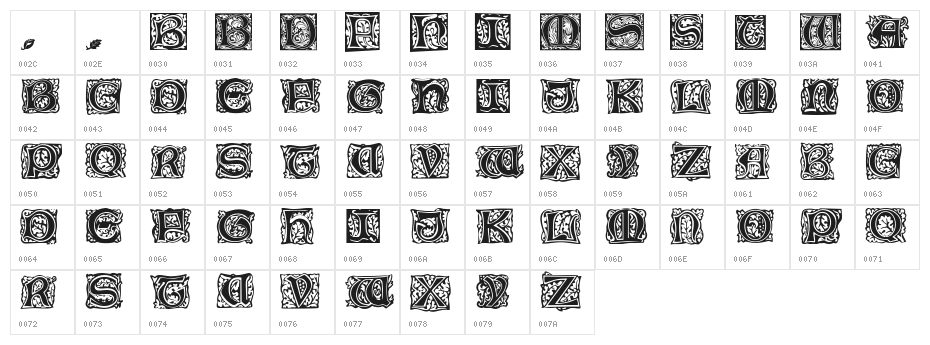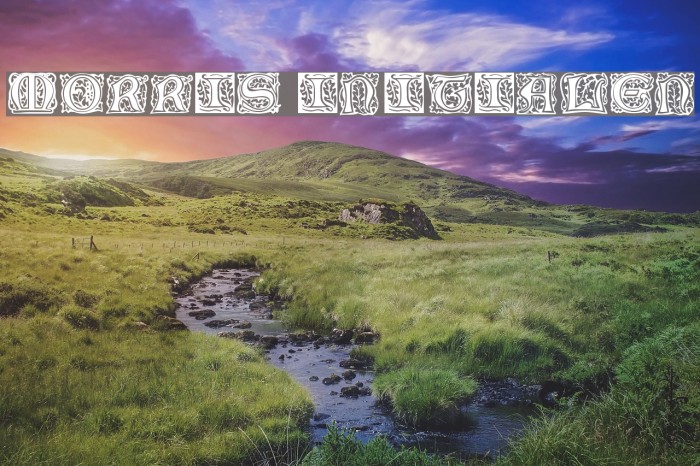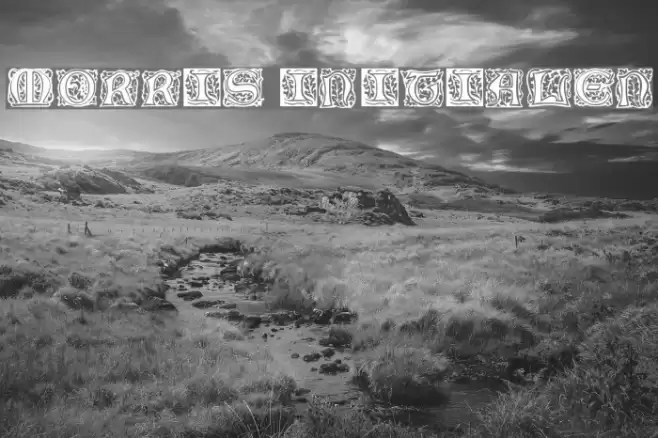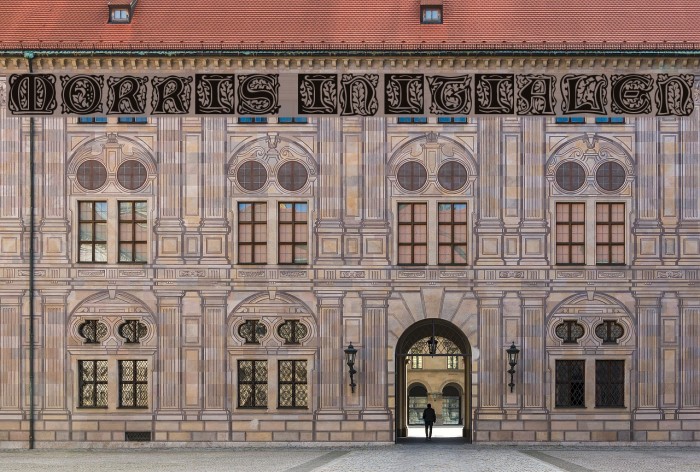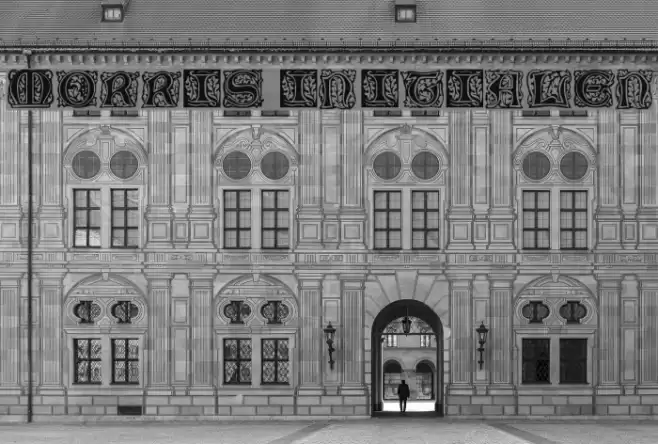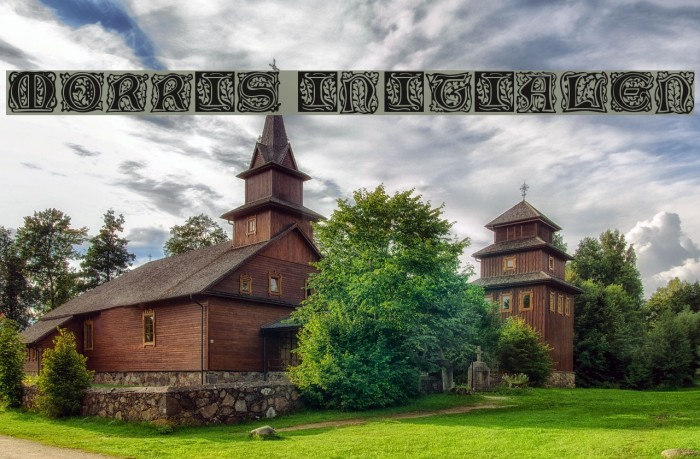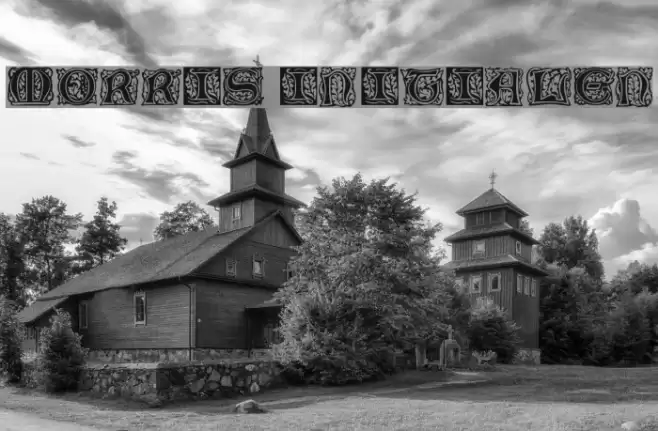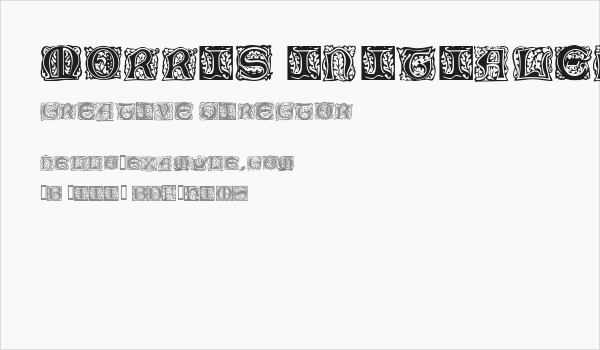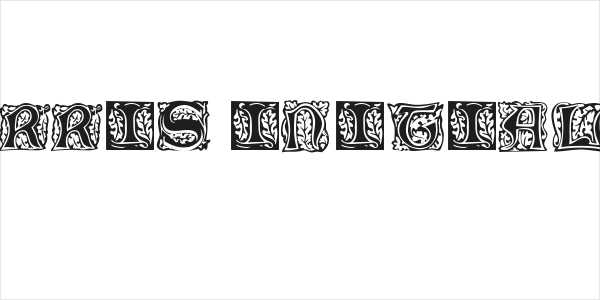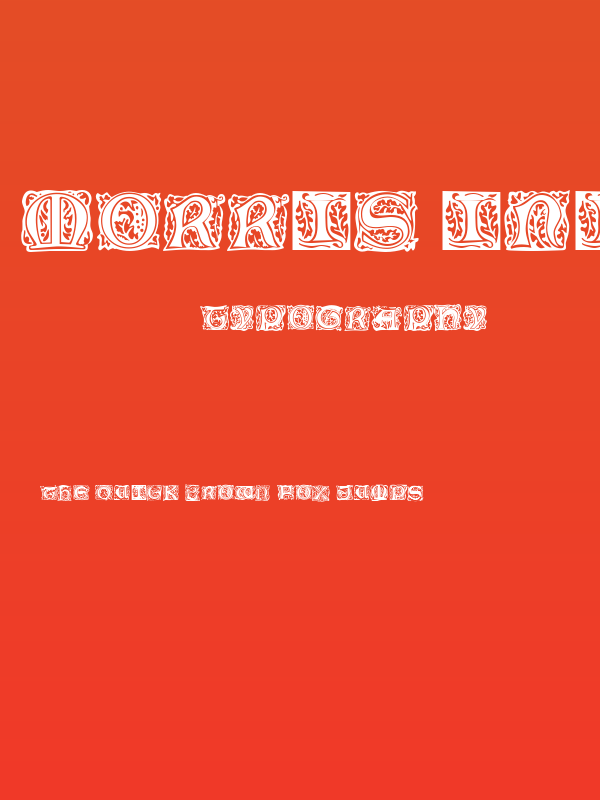
Morris Initialen Font
Morris Initialen Description
This font is a highly decorative and ornate typeface, characterized by intricate floral and vine-like patterns embedded within each letter. The design evokes a sense of historical elegance and artistic craftsmanship, reminiscent of medieval manuscripts or Victorian-era embellishments. Each character is framed within a square, adding a structured and uniform appearance to the overall design. The elaborate detailing within each letter makes it a standout choice for projects that require a touch of sophistication and artistic flair.
| Proposed Projects | Ideal for wedding invitations, historical-themed posters, book covers, and decorative signage. |